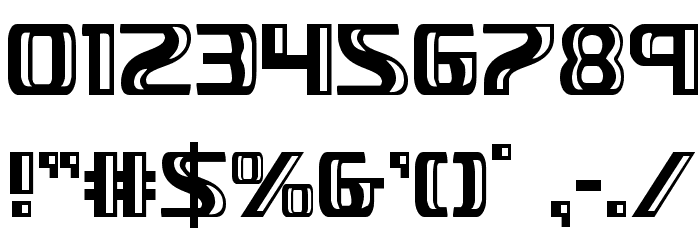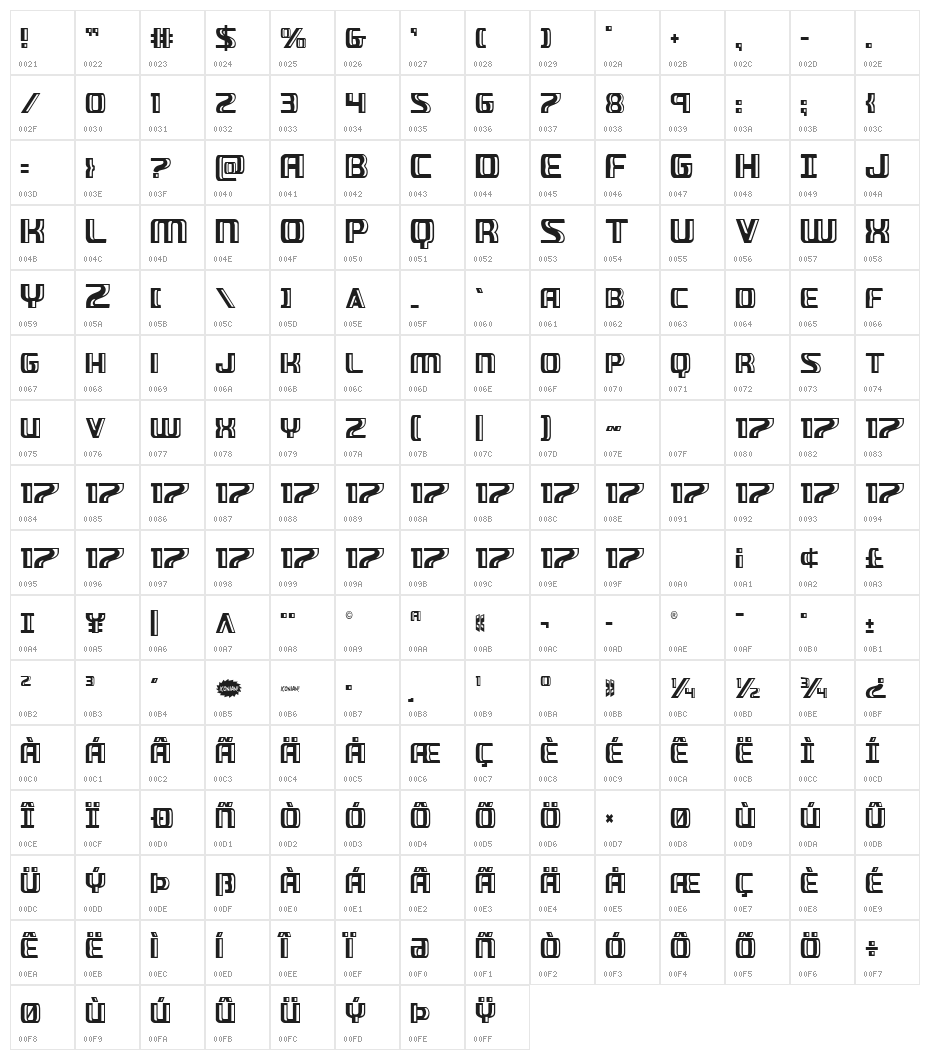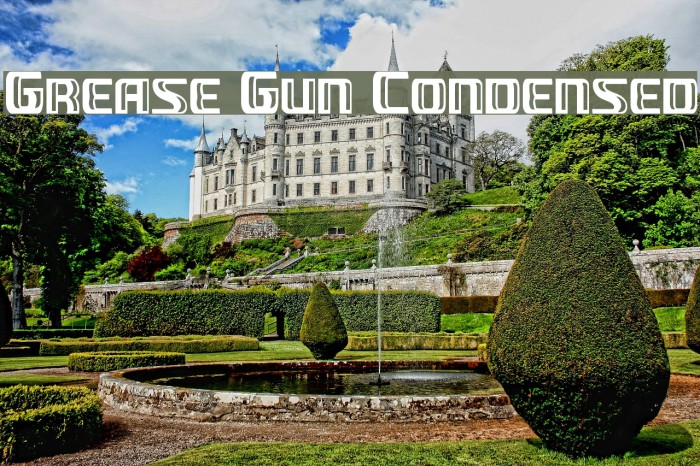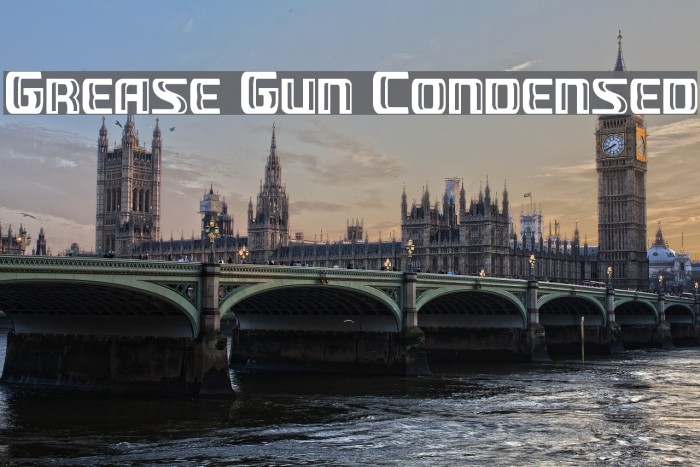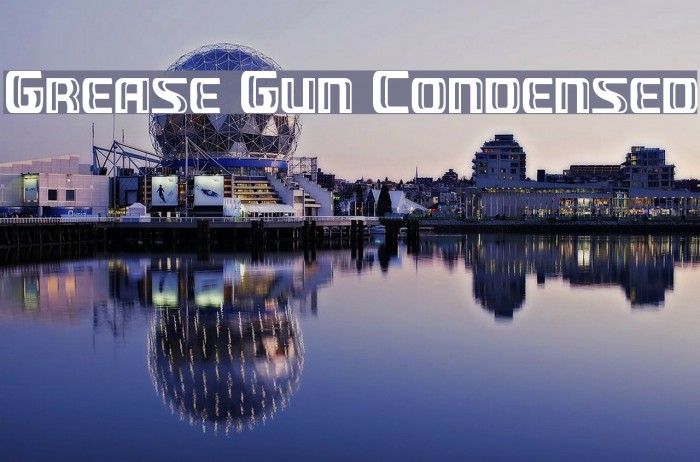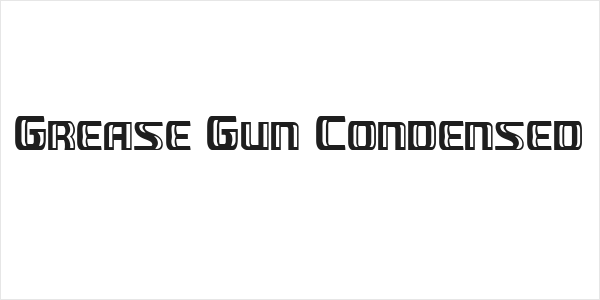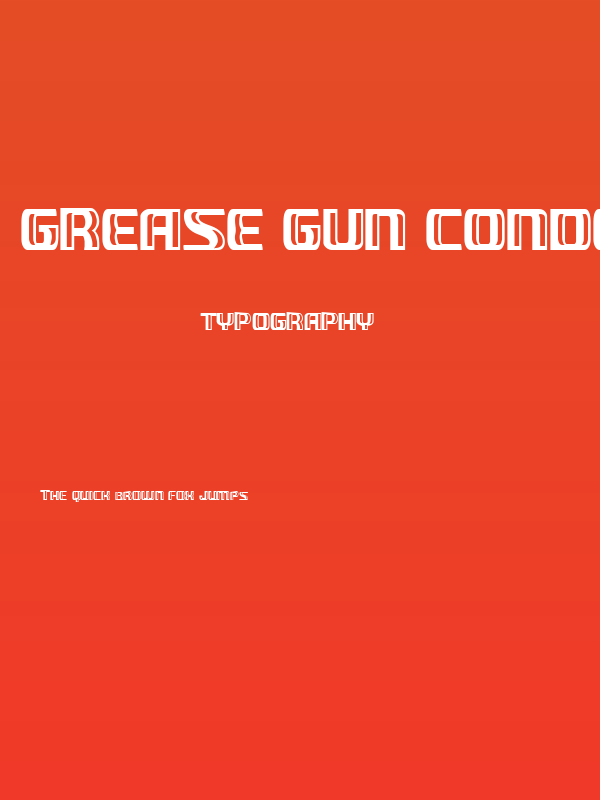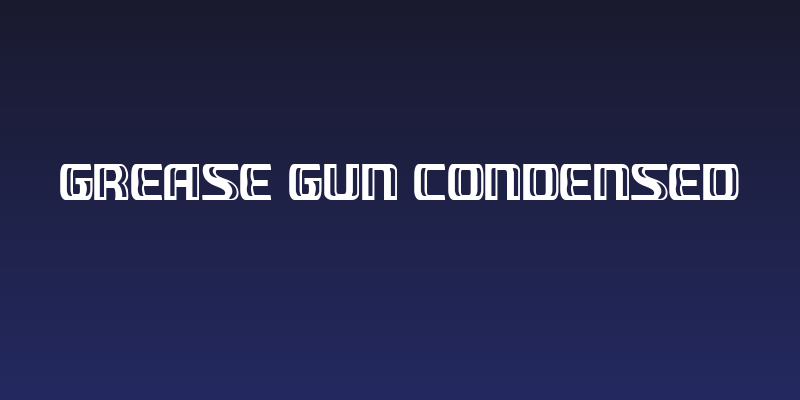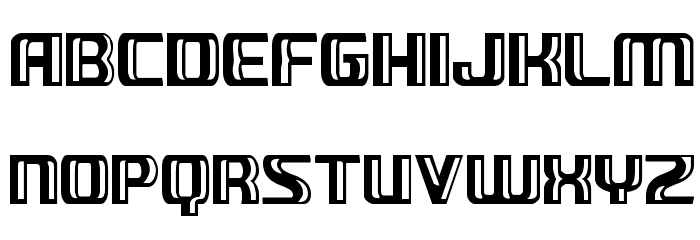
Grease Gun Condensed Font
Grease Gun Condensed Description
This font features a bold, geometric design with a condensed structure, giving it a strong and impactful presence. The characters are outlined with a thick border, creating a striking contrast between the inner and outer sections. The angular and blocky shapes of the letters convey a modern and industrial feel, making it suitable for attention-grabbing headlines. The uppercase and lowercase letters maintain a consistent style, while the numbers and special characters complement the overall aesthetic. Its distinct appearance makes it ideal for projects that require a bold and assertive typeface.
| Proposed Projects | Ideal for posters, logos, branding, and any design requiring a strong visual impact. |